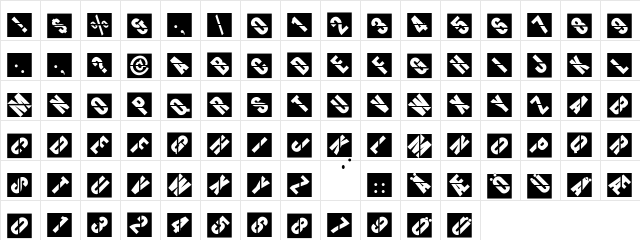
AeroGapBricks Regular
Design Context for AeroGapBricks Typeface
AeroGapBricks is a composed and adaptable typeface that performs quietly and consistently across a wide range of design contexts.